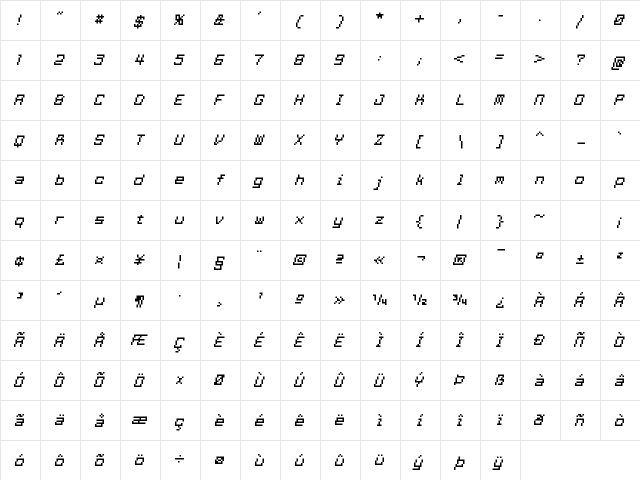
Squarewave Italic
Design Context for Squarewave Typeface
Squarewave offers clean, dependable letterforms without strong stylistic allegiance, making it a practical choice for designers who need flexibility. The dynamic lean of this cut emphasises speed and emphasis in any layout.
Pro Tip: Use Squarewave for emphasis, pull quotes, and subheadings where its slanted energy can add rhythm to the layout.